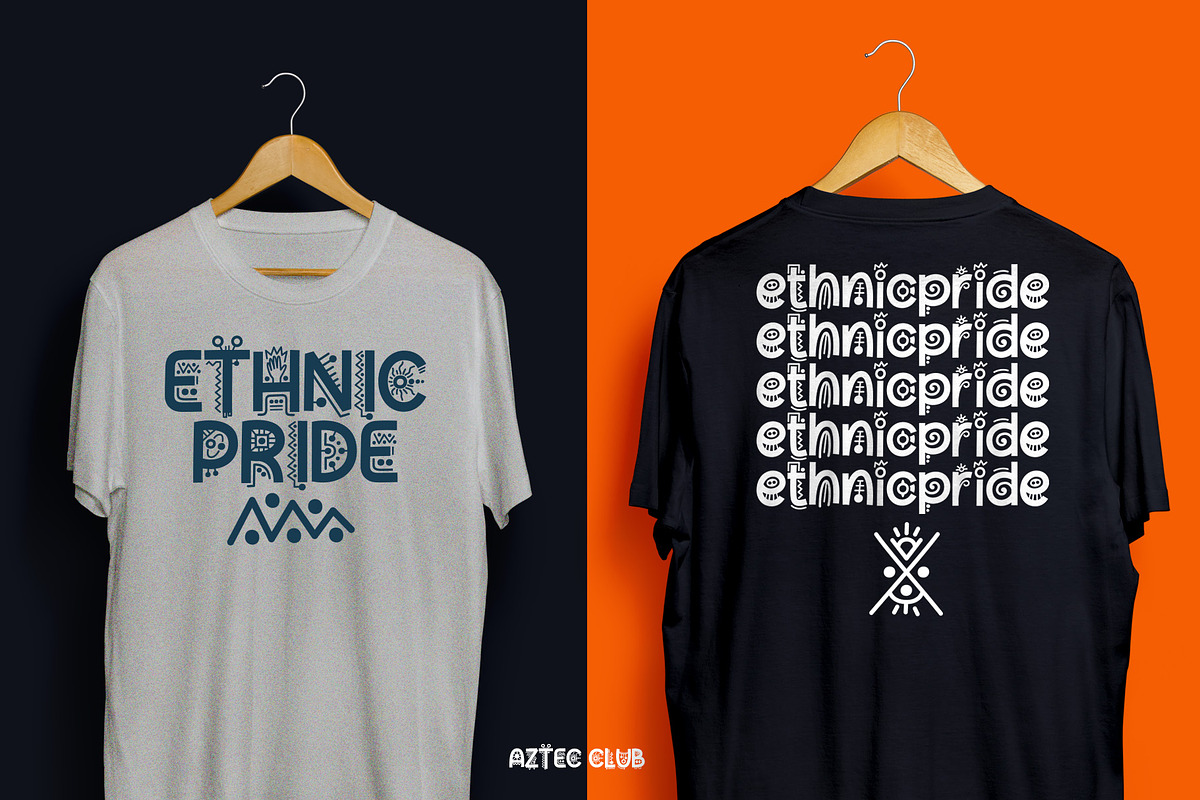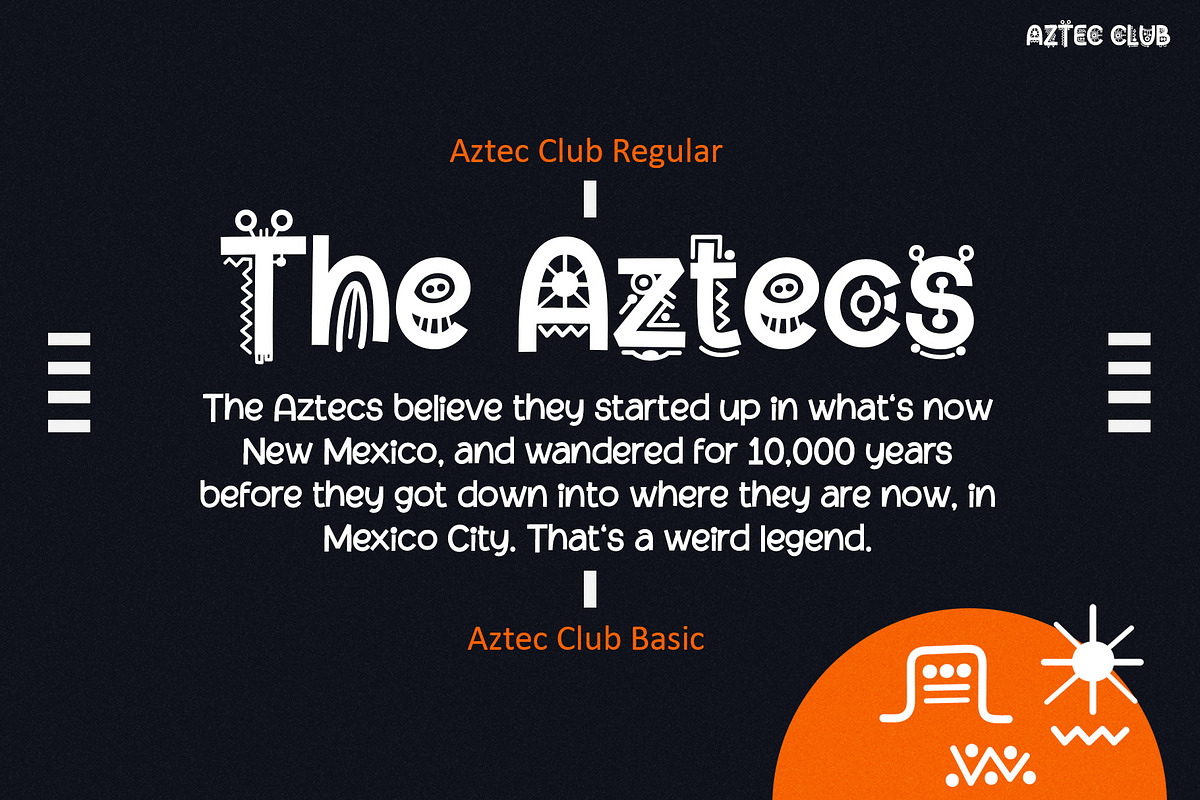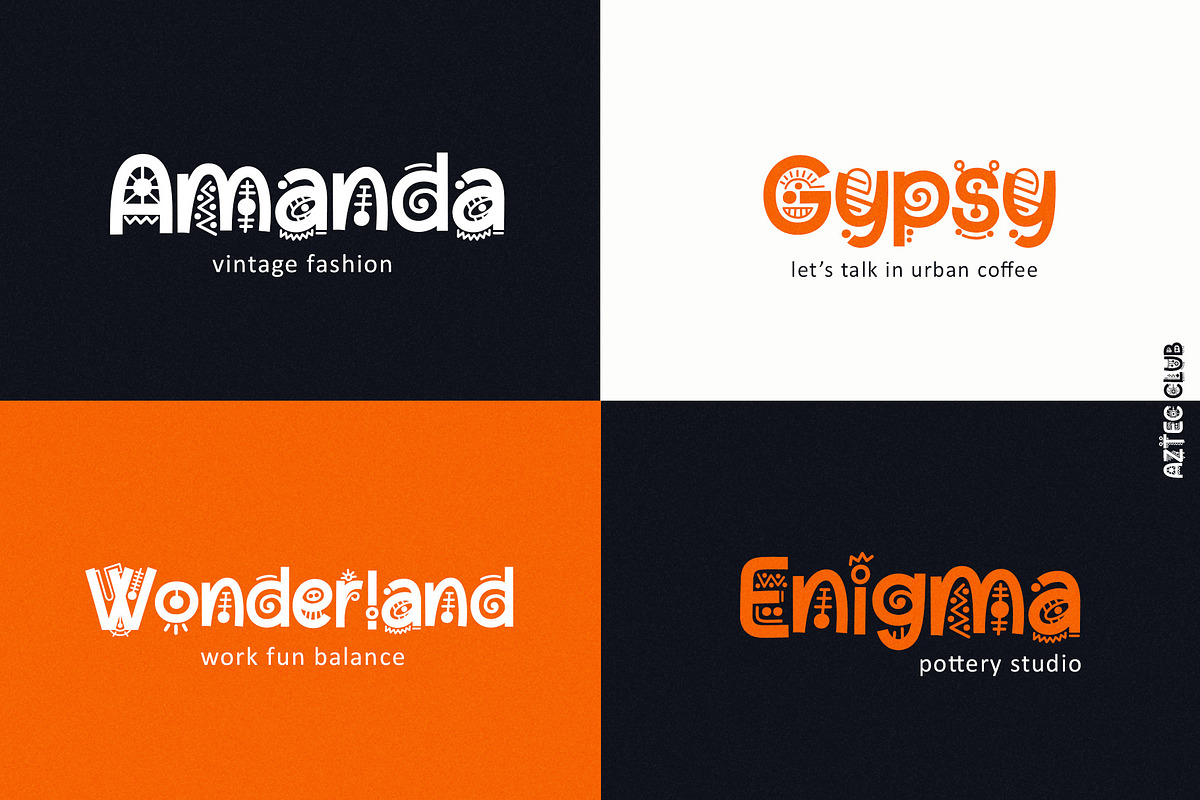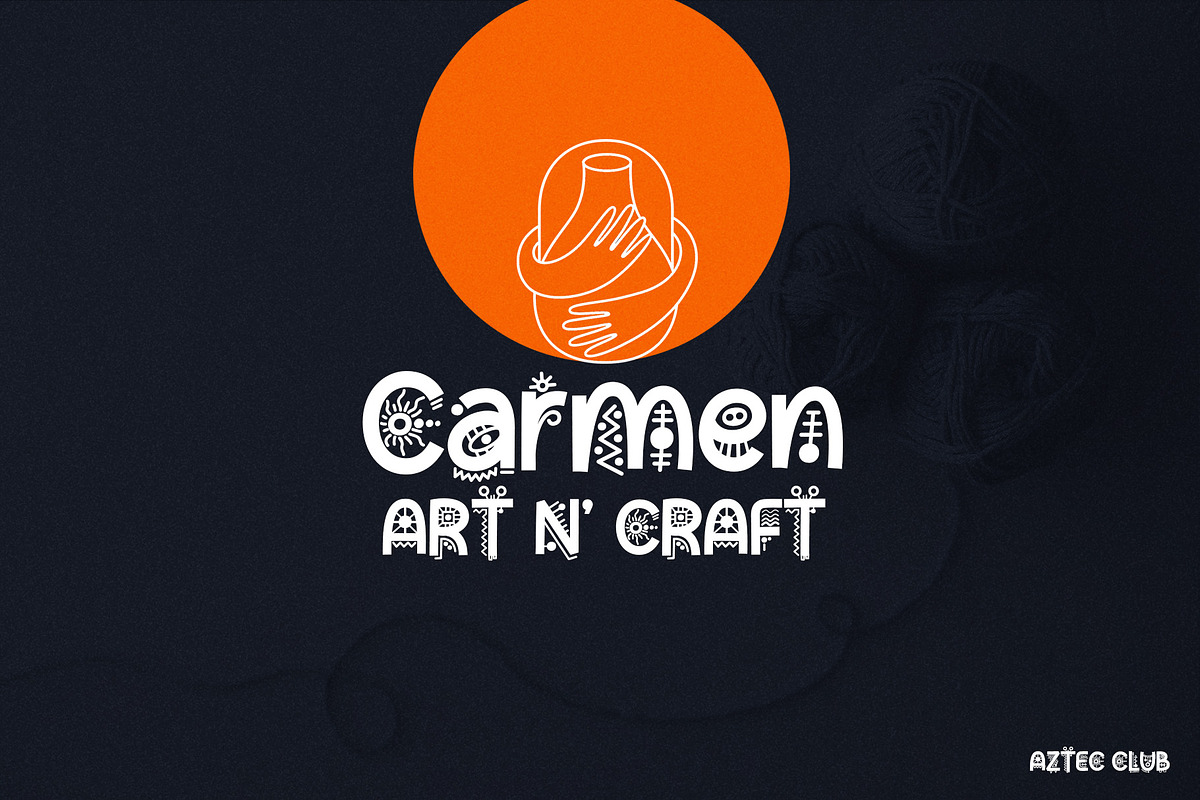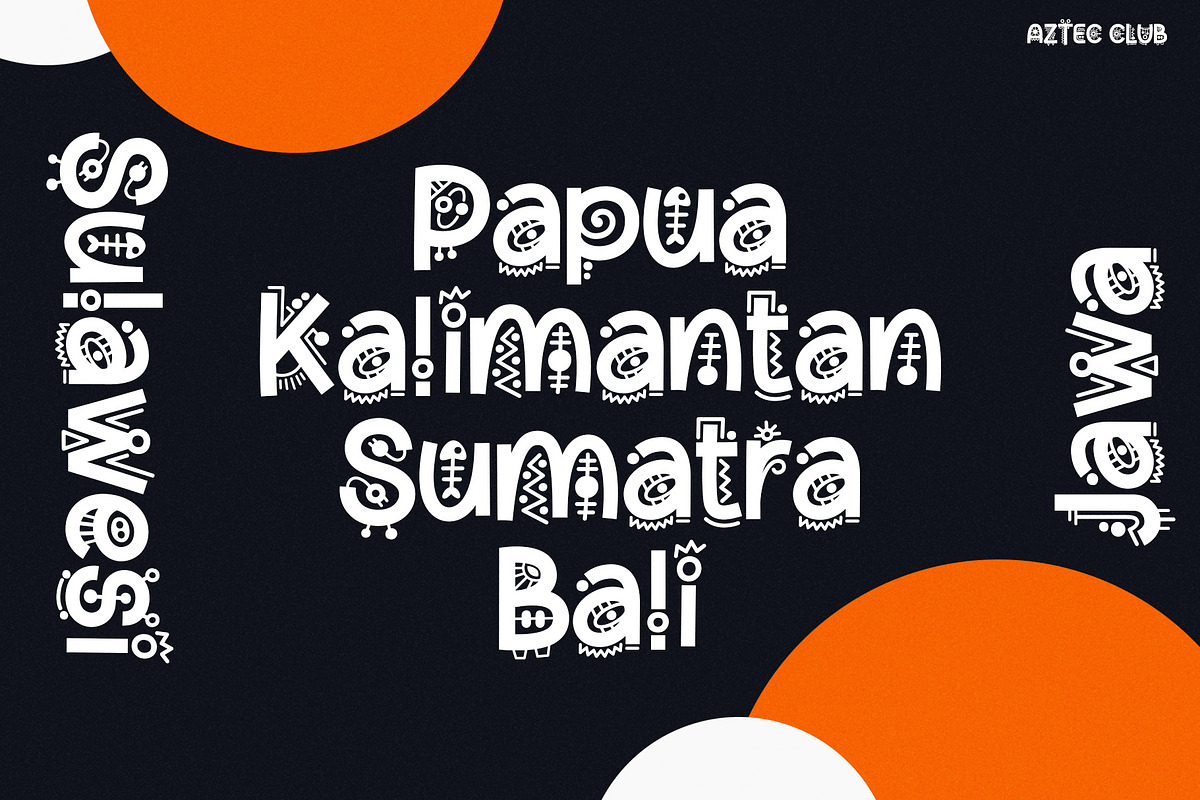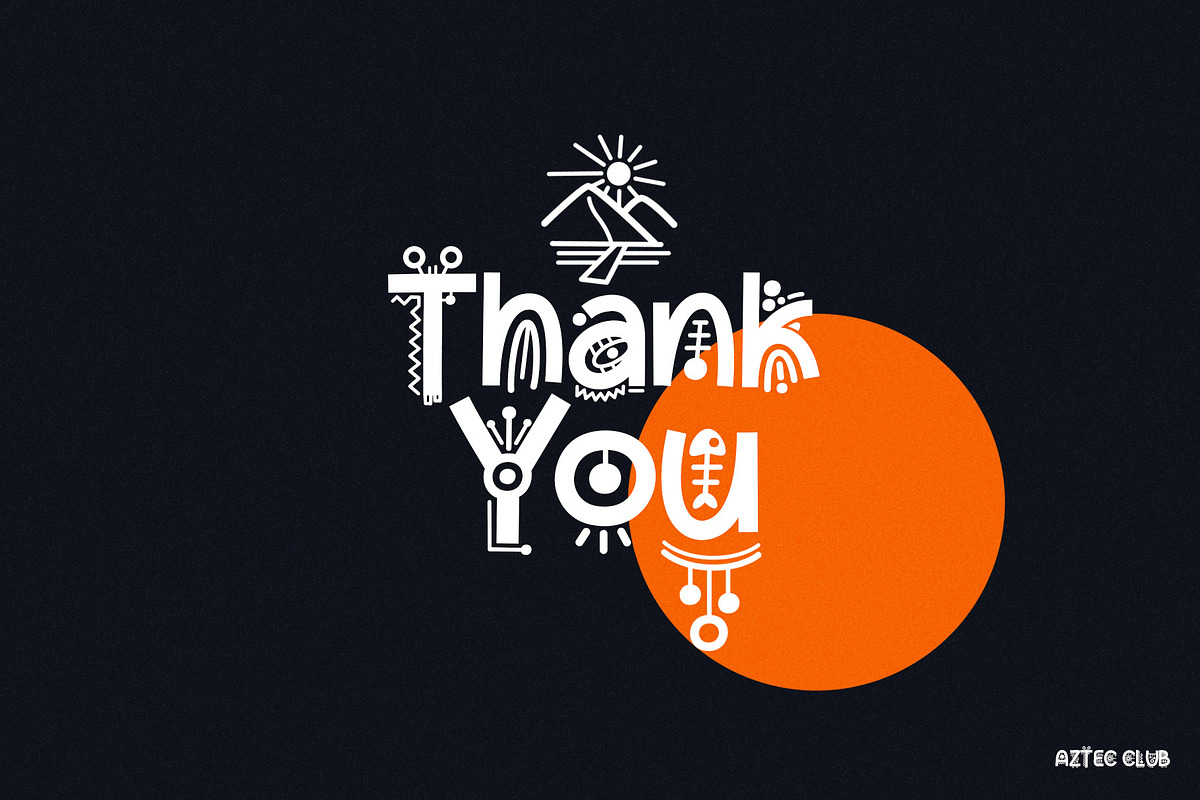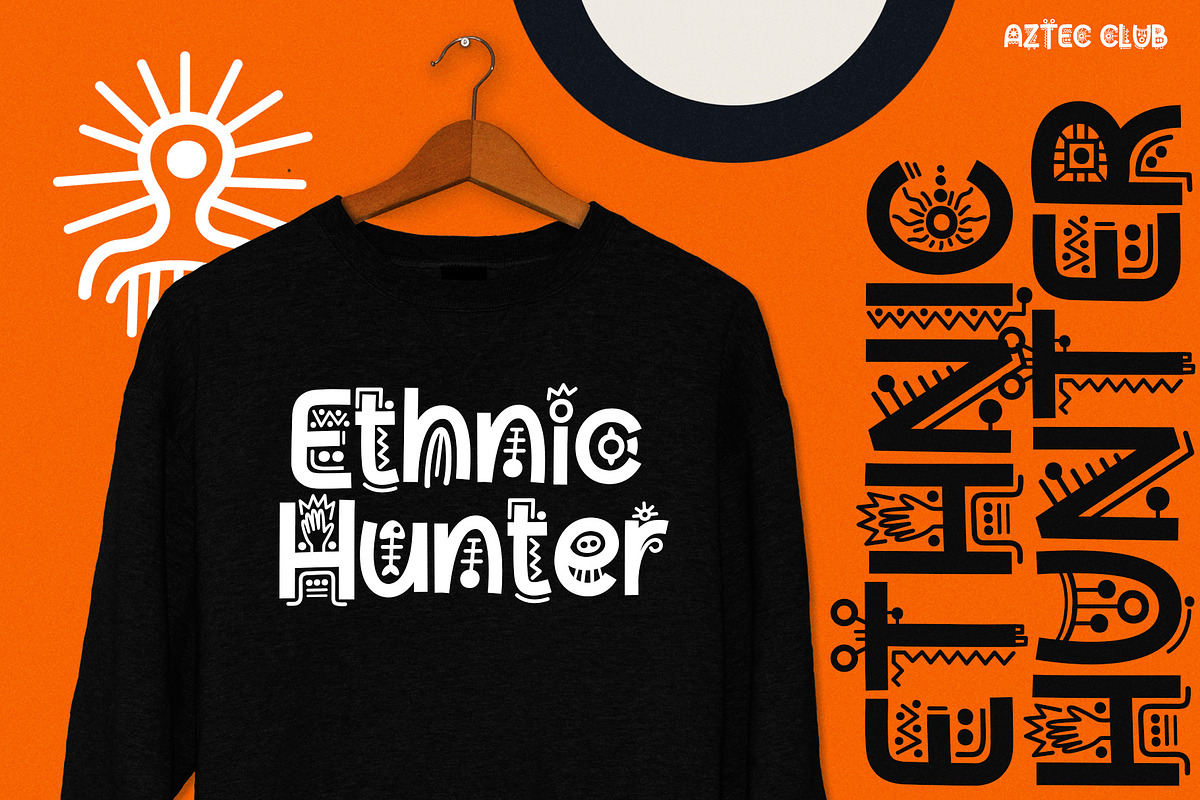
Aztec Club - Display Decorative
Aztec Club is a display decorative typeface.
The typeface is presented in two fonts: regular and basic.
The typeface describes about stylish, ethnic, different, pride, unique and easy to use. Aztec Club inspired by ethnic, local pride, culture and sub culture around the world.
USE Aztec Club typeface works great in logotype, headline, apparel, poster, magazine, décor item and wherever you want to be seen.